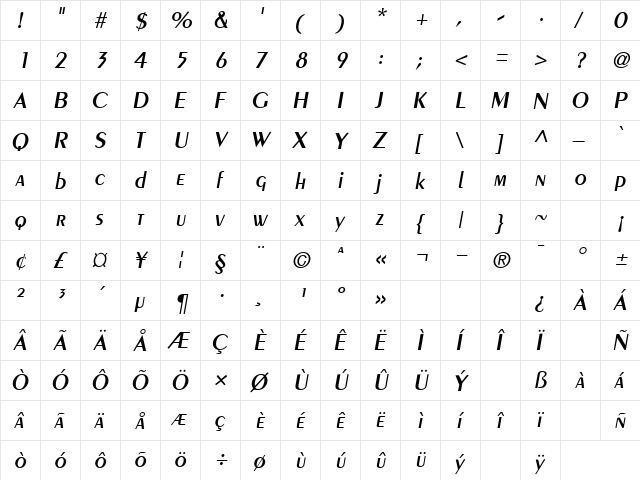
Overset Bold-Oblique Font Preview
Design Context for Overset Typeface
Overset offers clean, dependable letterforms without strong stylistic allegiance, making it a practical choice for designers who need flexibility. The dynamic lean of this cut emphasises speed and emphasis in any layout. The heavy weight commands attention and anchors typographic hierarchies.
Pro Tip: Try Overset for annotation and caption copy alongside an upright companion — the contrast in angle creates a dynamic but ordered typographic system.